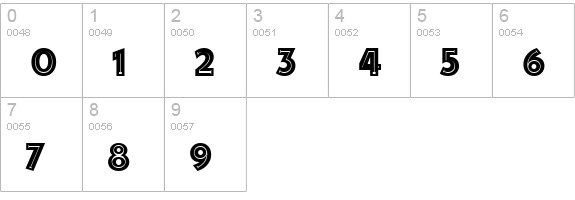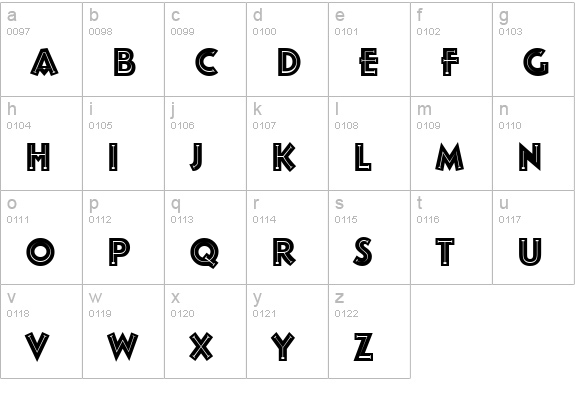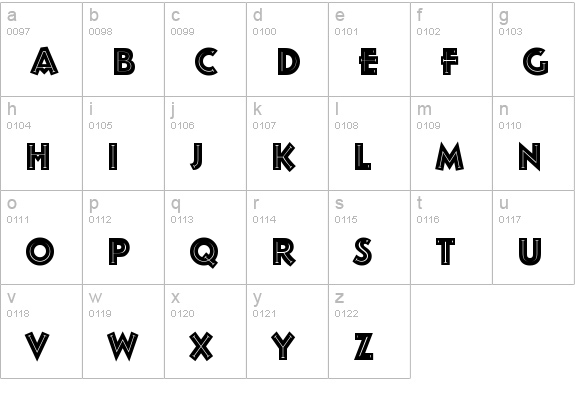
Follies LET Plain Font Details
Follies LET Plain font is a charming and playful typeface that exudes a sense of whimsy and fun. With its quirky and unique design, this font is perfect for adding a touch of personality to any project. The rounded edges and smooth curves of Follies LET Plain give it a friendly and approachable appearance, making it ideal for a variety of creative applications. One of the best things about Follies LET Plain font is that it is completely free to download. That's right - you can get your hands on this delightful font at no cost at all! Simply head over to FontsMarket.com to grab your own copy and start using Follies LET Plain in your designs today. Whether you're working on a branding project, a website, or a personal invitation, this font is sure to bring a touch of joy and character to your work. Download Follies LET Plain font now and let your creativity shine!